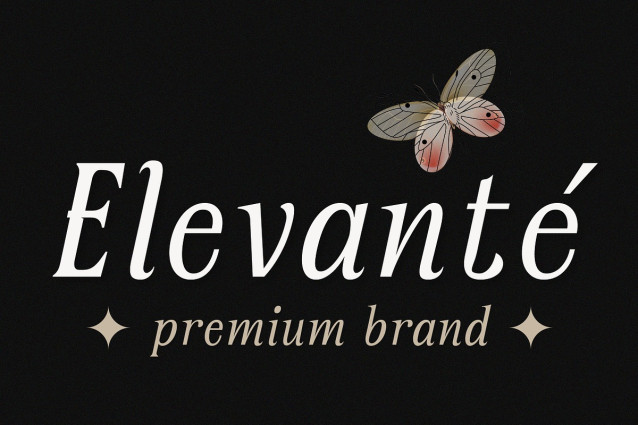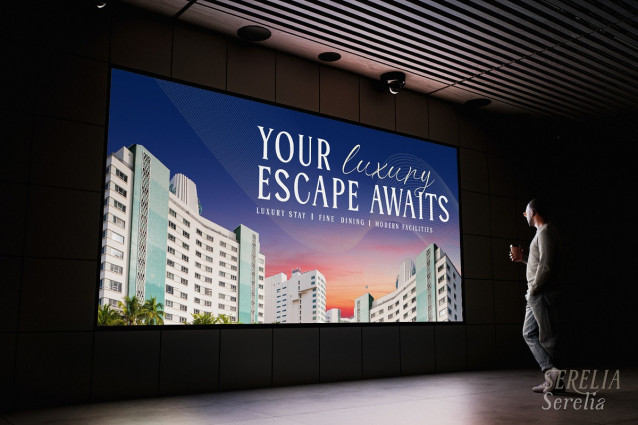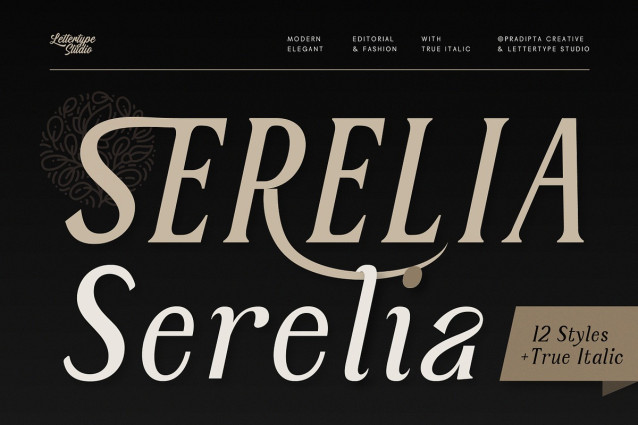
Serelia Font Family
Serelia Font Family is a refined editorial serif crafted with graceful contrast, elegant curves, and expressive signature details designed for premium branding. Its upright styles blend modern precision with classic warmth, enhanced by a wide collection of stylistic alternates across A–Z, a–z, including double-story “a”, luxury ampersand sets, and the iconic R-signature shape. Key ligatures like CA, CE, CI, CO, CU, CH, CC, CQ, AA, EE, FF, GG, OO, QQ, SD, SE, SS, TT, and LA deliver a distinctive, editorial personality in every layout.